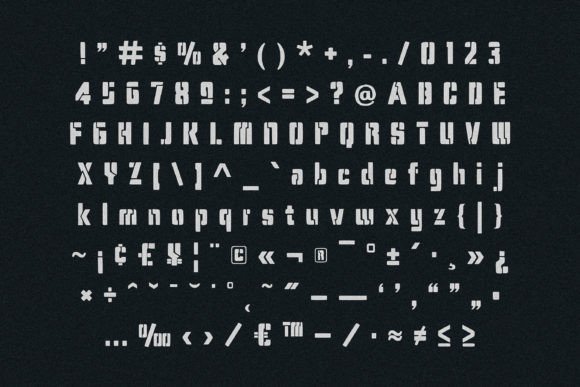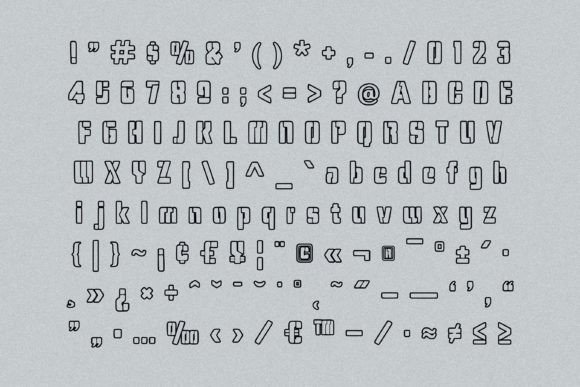
Dynamite Font: Unleash Your Creativity with this Powerful Stencil Display Font
Are you looking for a font that can add a touch of nostalgia and excitement to your design projects? Look no further than the Dynamite Font, a powerful and versatile stencil display font duo that’s perfect for creating retro-style comic book covers, posters, and more. With its bold and eye-catching design, Dynamite Font is sure to make your projects stand out from the crowd.
What is Dynamite Font?
Dynamite Font is a stencil display font duo that’s inspired by the classic comic book covers of the past. Its unique design features bold, chunky lines and a distinctive stencil style that’s reminiscent of retro comic books. The font comes in two styles, allowing you to mix and match to create a unique look that’s all your own.
Key Features of Dynamite Font
- Powerful and Versatile: Dynamite Font is a powerful and versatile font that’s perfect for a wide range of design projects, from posters and flyers to logos and branding.
- Stencil Display Font: The font features a unique stencil design that’s perfect for creating bold and eye-catching text.
- Retro-Style: Dynamite Font has a distinctly retro feel that’s perfect for creating comic book-style covers, posters, and more.
- Font Duo: The font comes in two styles, allowing you to mix and match to create a unique look.
Why Use Dynamite Font?
So why should you use Dynamite Font in your design projects? Here are just a few reasons:
- Add a Touch of Nostalgia: Dynamite Font has a distinctly retro feel that’s perfect for adding a touch of nostalgia to your design projects.
- Stand Out from the Crowd: The font’s bold and eye-catching design is sure to make your projects stand out from the crowd.
- Customizable: The font comes in two styles, allowing you to mix and match to create a unique look that’s all your own.
Design Ideas Using Dynamite Font
Dynamite Font is a versatile font that can be used in a wide range of design projects. Here are a few ideas to get you started:
- Comic Book Covers: Use Dynamite Font to create bold and eye-catching comic book covers that are sure to stand out.
- Posters and Flyers: The font is perfect for creating posters and flyers that need to grab attention.
- Logos and Branding: Dynamite Font can be used to create bold and memorable logos and branding.
- Social Media Graphics: Use the font to create eye-catching social media graphics that are sure to stand out.
Tips for Using Dynamite Font
Here are a few tips for using Dynamite Font in your design projects:
- Use it Boldly: Dynamite Font is a bold font, so don’t be afraid to use it boldly in your design projects.
- Experiment with Colors: The font looks great in a range of colors, so experiment with different colors to find the one that works best for your project.
- Mix and Match: The font comes in two styles, so don’t be afraid to mix and match to create a unique look.
| Font Name | Dynamite Font |
| Author | The Tenacious Type Studio |
Dynamite Font is a powerful and versatile stencil display font duo that’s perfect for adding a touch of nostalgia and excitement to your design projects. With its bold and eye-catching design, Dynamite Font is sure to make your projects stand out from the crowd. Whether you’re creating comic book covers, posters, logos, or social media graphics, Dynamite Font is a great choice. So why not give it a try and see the difference it can make in your design projects?